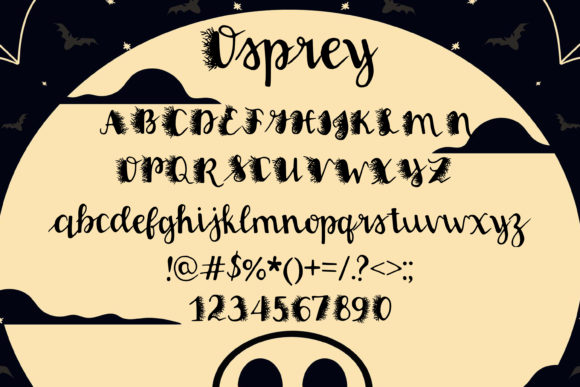
Introduction to Osprey Font
Have you ever stared at a blank canvas, desperately searching for the perfect font to bring your creative project to life? I know I have. The struggle is real, especially when you’re working on a high-quality design that requires a unique touch. That’s where the Osprey Font comes in – a quirky and interesting display font that’s sure to add some personality to your design.
Whether you’re a seasoned designer or just starting out, the Osprey Font is a valuable resource that’s definitely worth exploring. Not only is it free to download, but it’s also a high-quality font that’s perfect for adding a touch of whimsy to your creative project. With its transparent background and versatile design, the Osprey Font is an ideal design resource for anyone looking to add some visual interest to their work.
Key Features of Osprey Font
• High-quality design resource suitable for various creative projects
• Unique, modern design with a transparent background, perfect for layered designs
• Perfect for use in logos, branding, and other visual identity projects
• Designed to be versatile and easily customizable, making it a valuable addition to any design resource collection
Honest Review: Osprey Font
What works well: ✨ The Osprey Font is incredibly versatile, with a wide range of weights and styles to choose from. The high quality of the font is evident, even at larger font sizes. The transparent background makes it easy to layer and combine with other design elements.
• Excellent readability, even in small font sizes
• Highly customizable with a wide range of weights and styles
• Easy to use and integrate into any design project
However, I did encounter a few limitations: ⚠️ The Osprey Font is a free download, which means it’s not as comprehensive as some of the more premium fonts out there. Additionally, the font may not be suitable for all design projects, particularly those that require a more formal or traditional look.
The Osprey Font is commonly used in logo designs, branding materials, and marketing materials. Its unique style and high-quality design make it an ideal choice for creative projects that require a professional touch.